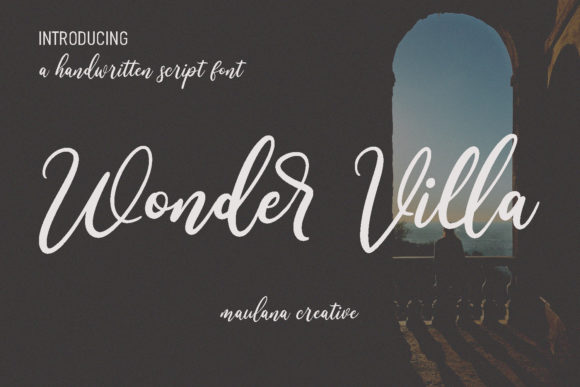
Embark on a typographic journey with Wonder Villa Font, a script font that exudes elegance and charm. Its bold contrast strokes dance across the page, capturing attention with their dynamic presence. Wonder Villa's playful characters, adorned with ligatures and alternates, infuse your designs with a touch of whimsy and personality.
Whether you're a seasoned designer or just starting out, Wonder Villa is your perfect companion. Its user-friendly nature makes it accessible to all skill levels, while its versatility allows it to shine in a multitude of projects. From eye-catching logos and branding elements to captivating posters and invitations, Wonder Villa transforms your creative visions into tangible masterpieces.
Unleash your creativity and let Wonder Villa cast its spell on your designs. Its magical aura will leave a lasting impression on your audience, leaving them enchanted by your artistic prowess. Experience the transformative power of Wonder Villa and elevate your designs to new heights of beauty and sophistication.